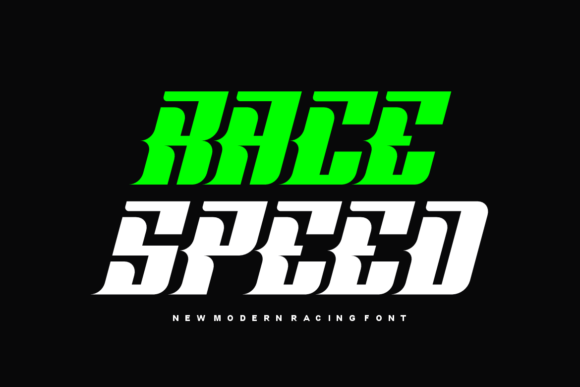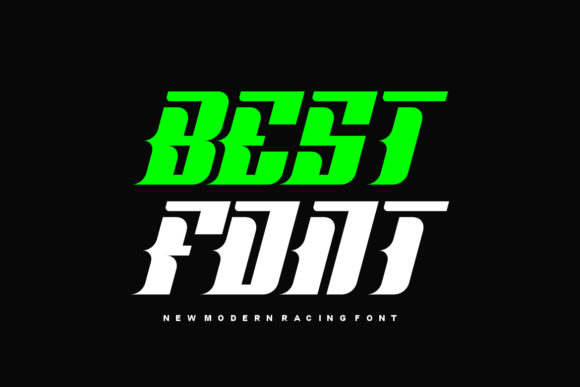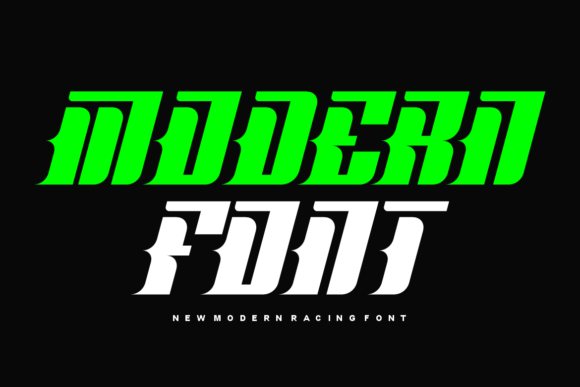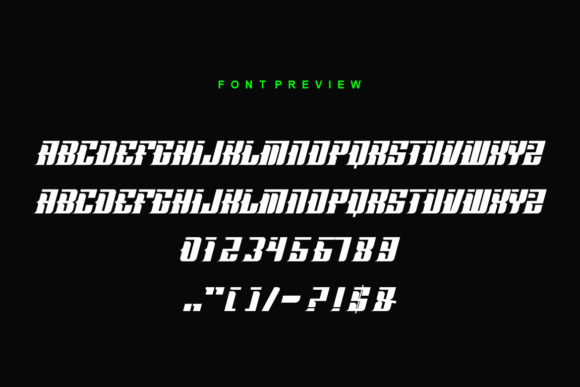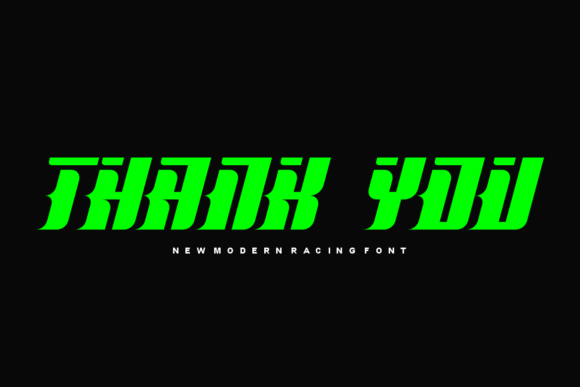
Introduction to Racing Beginners Font
Racing Beginners is a modern font with a sleek, fast look.
It’s perfect for designs that need a touch of speed and excitement The letters are clean and easy to read, making it great for racing themes and energetic projects.
Key Features of Racing Beginners Font